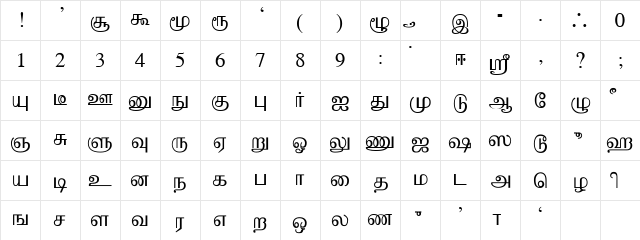
nadian Plain Font Preview
nadian Plain
nadian Plain Font Details
Design Context for nadian Typeface
nadian takes a measured approach to typography — its balanced proportions and neutral character make it a reliable workhorse for both digital and print work.